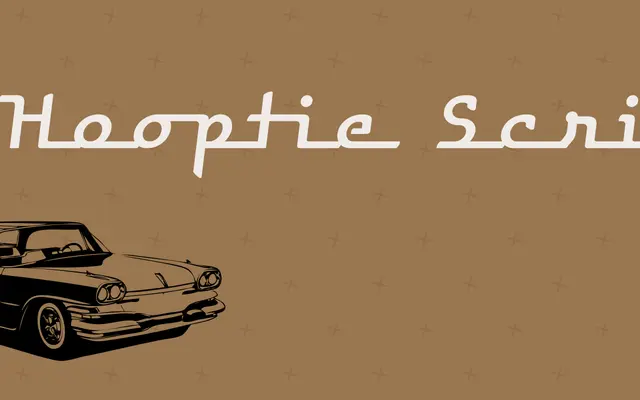
Hooptie Script
FDI Type Foundry · Ralf Herrmann · 2011
A display script based on American car lettering, using OpenType contextual alternates to ensure each letter pair connects cleanly.
Drawn from the car lettering tradition of Detroit's Motor City, Hooptie Script comes in five styles including Regular, Oblique, Swash, Rust and Starchief. Contextual alternates handle automatic letter-to-letter connection, and underscores can be inserted to extend connector strokes between characters. The full package includes seven bonus vector illustrations of hooptie cars, making it suited to branding and headline work with an automotive flavour.
A display script drawn from American car lettering tradition, with OpenType contextual alternates ensuring smooth letter connections characteristic of casual script fonts.